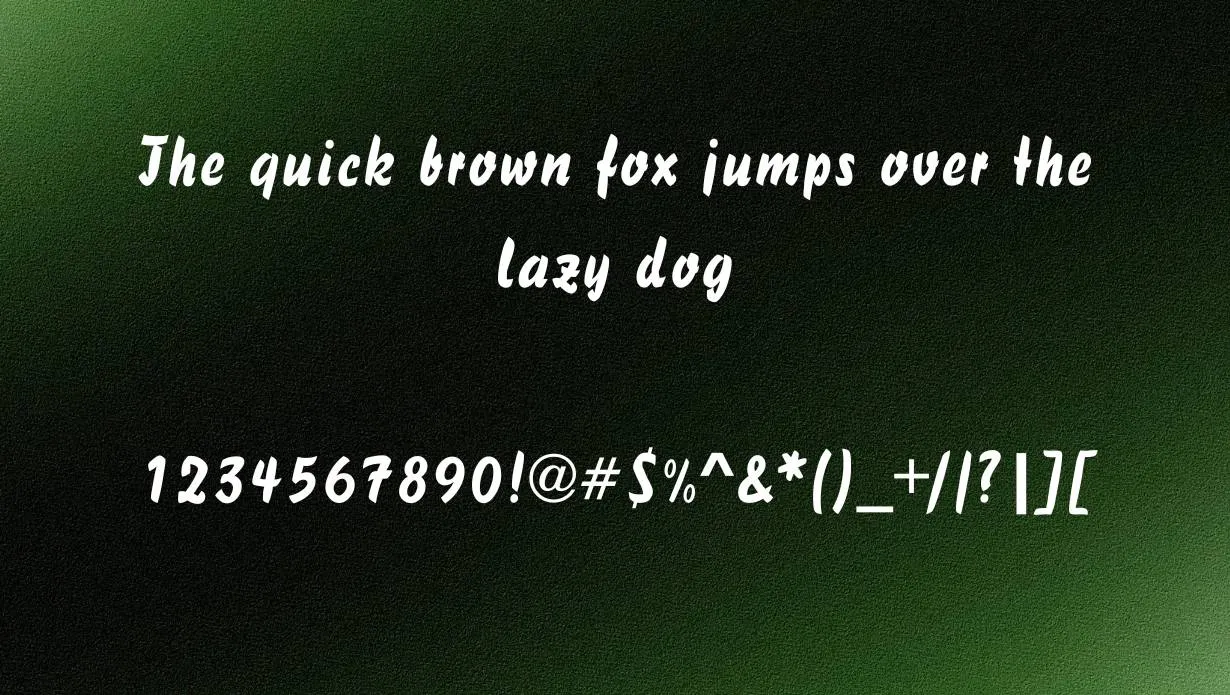
The Blizzard font, with its bold and eye-catching design, serves as an excellent choice for attention-grabbing headlines, posters, or any text requiring emphasis.
Its unique style brings forth a distinct visual impact, ideal for creating prominent titles and headers in creative designs, ensuring that the text stands out and captures the viewer’s attention.
| Name | Blizzard Font |
| Designer | Julius Kirn |